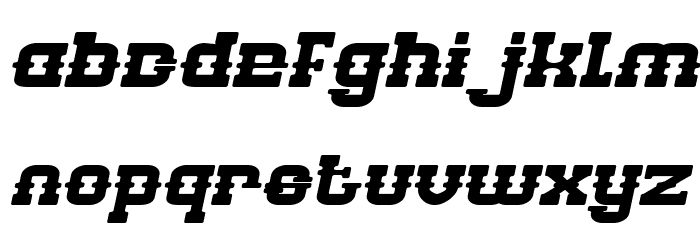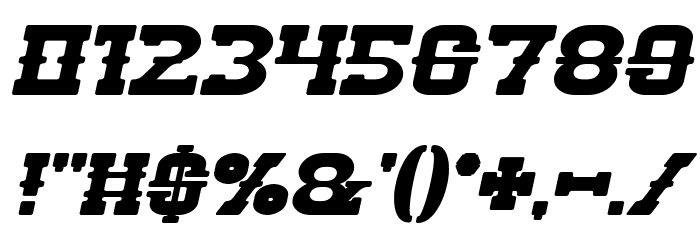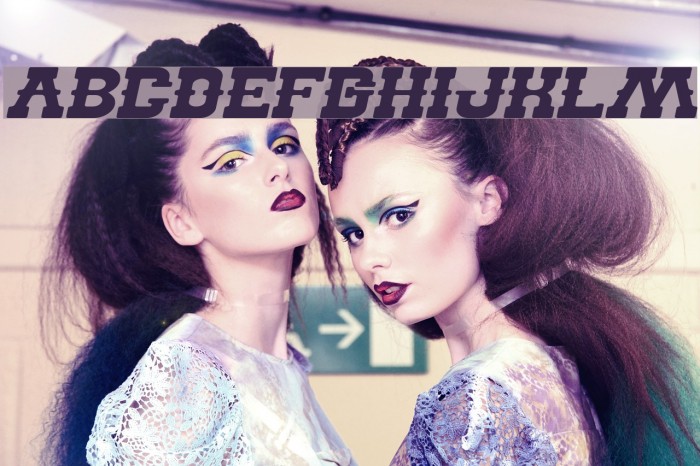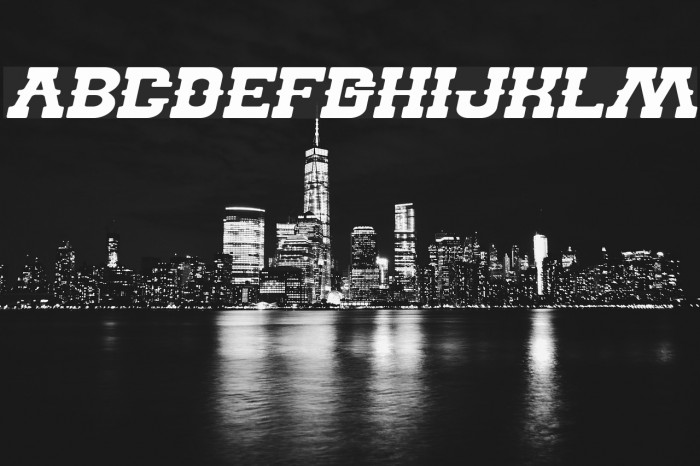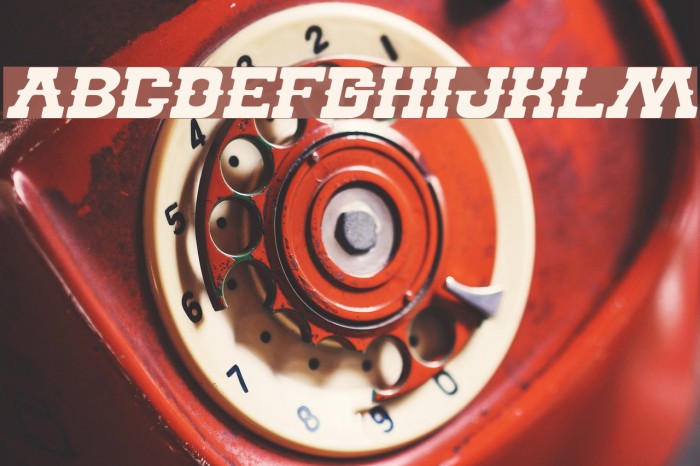
BILLY THE KID Bold Italic Font
This font features a bold and italicized style with a strong, impactful presence. The characters are designed with a slab serif structure, giving them a sturdy and robust appearance. The strokes are thick and consistent, providing a high contrast that enhances readability and visual appeal. The italic slant adds a dynamic and energetic feel, making it suitable for attention-grabbing headlines or titles. The character spacing is normal, ensuring clarity and legibility across various sizes. The overall style is modern with a touch of vintage flair, making it versatile for both contemporary and retro-themed projects.
A bold, italic slab serif font with high contrast and a modern vintage style.
- Proposed Projects: Ideal for use in posters, branding, headlines, and any design requiring a bold statement.
- Overall Style: Modern Vintage